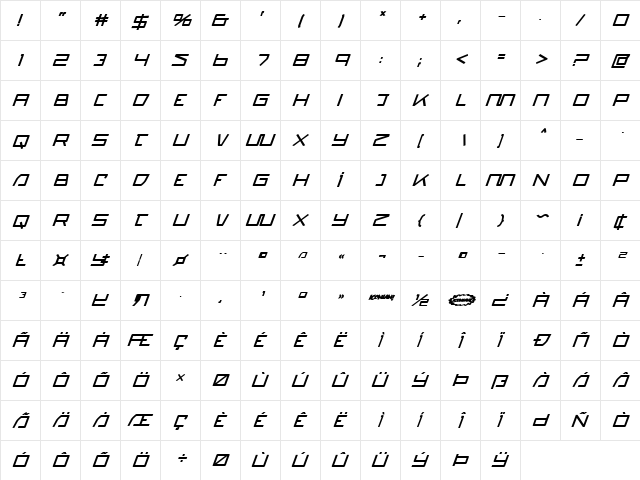
Quasitron Bold Italic Bold Italic
Design Context for Quasitron Bold Italic Typeface
Quasitron Bold Italic is a composed and adaptable typeface that performs quietly and consistently across a wide range of design contexts. The slanted form adds forward momentum and visual energy. The heavy weight commands attention and anchors typographic hierarchies.